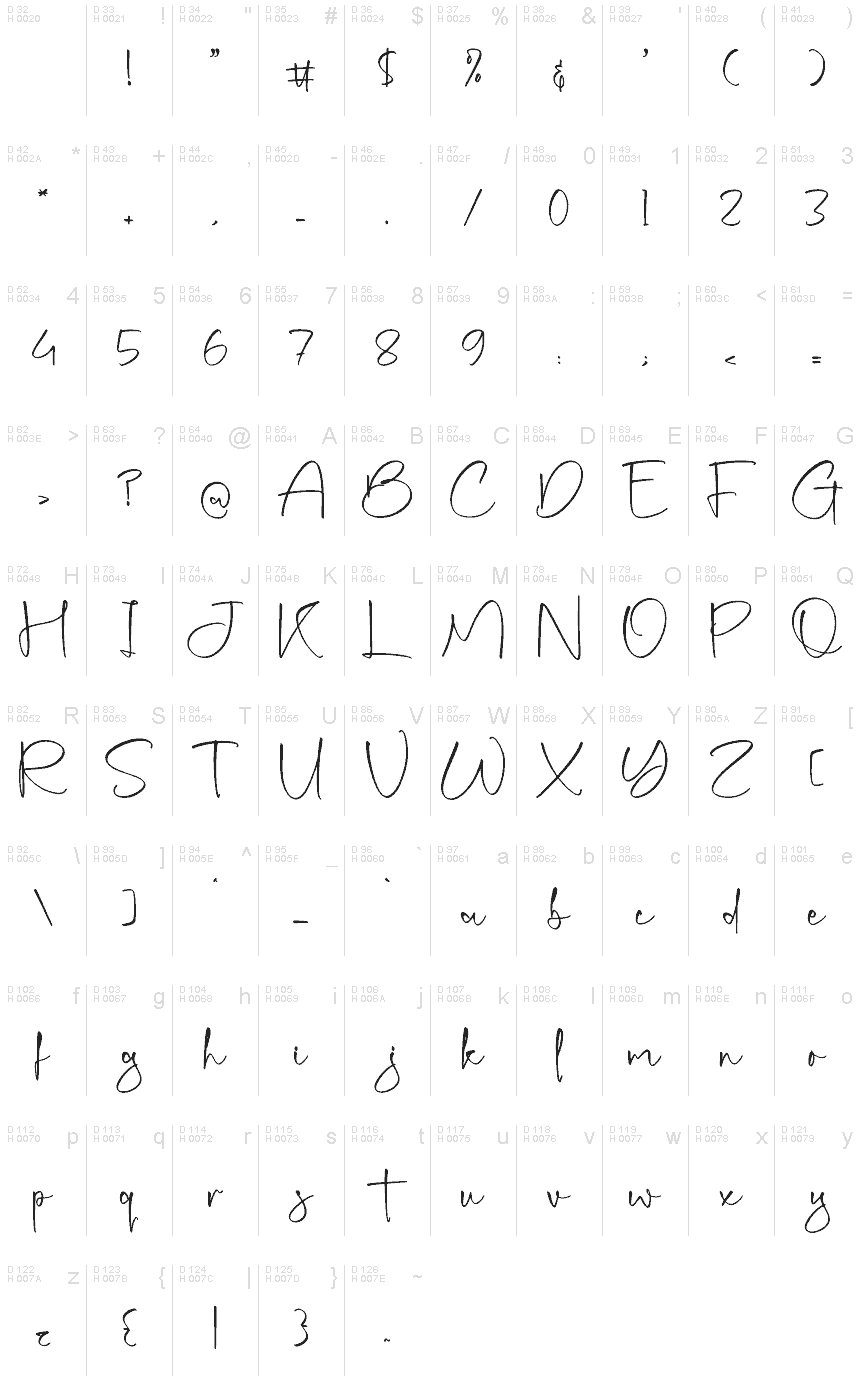
Bethoman
Bethoman font by Letterena Studios is a light handwritten font with an elegant touch and casual sophistication. Borrowing inspiration from natural handwriting, it has a fluid movement, organic flow, and hand-lettered aesthetic. This authentic set of characters gives you the power to add balance and creativity to your future designs.